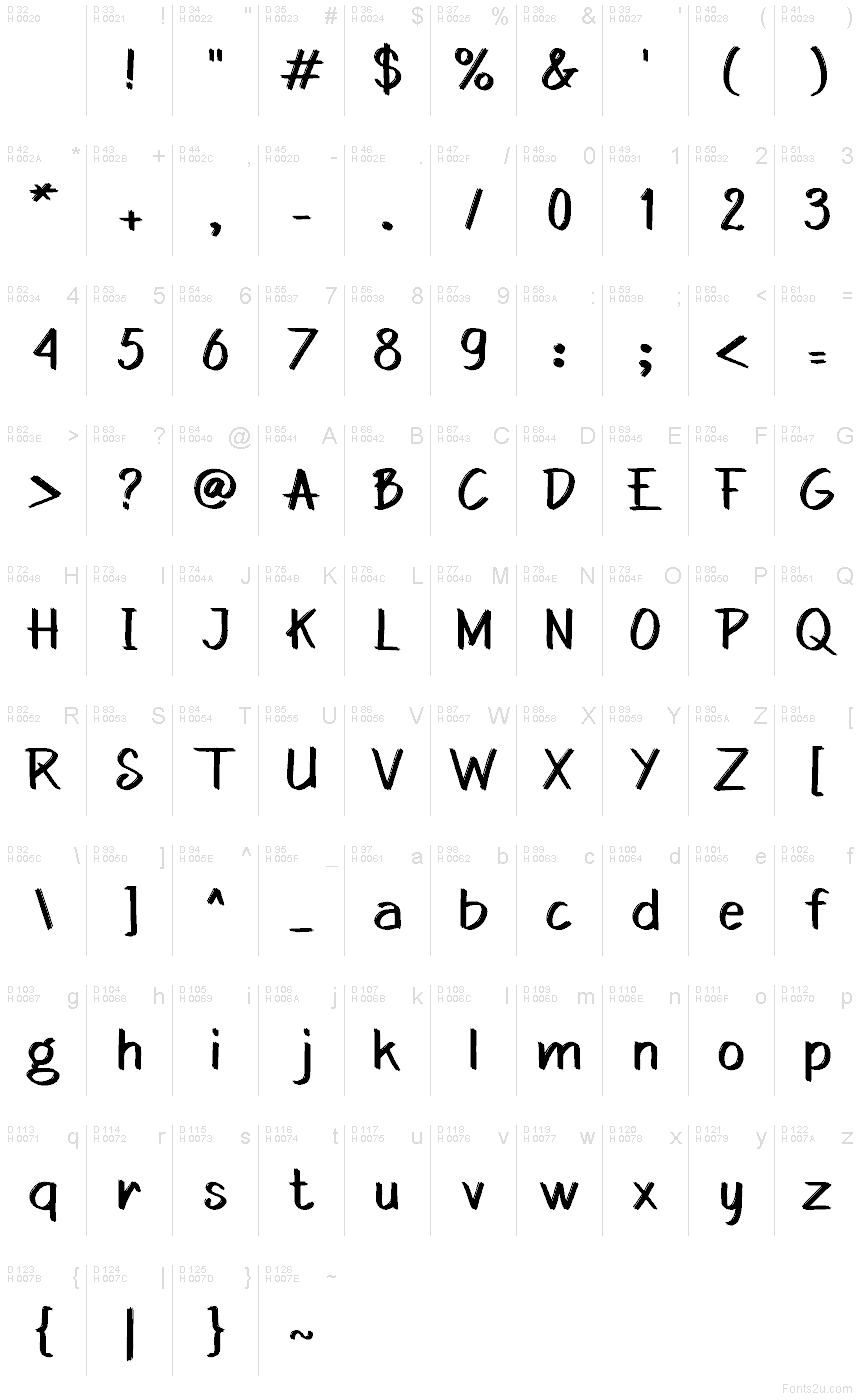
Building Victory
Building Victory font by Studio Hello Good is an expressive handwritten font with energy and flair. With a brush-like texture, it captures a dynamic and artistic feel that resonates across various designs. This free handwritten font is the perfect tool for those looking to bring vitality and creativity into their projects.
Perfect as the primary or secondary typeface, Building Victory suits websites, banners, social media posts, headlines, book covers, magazines, logos, slogans posters, advertisements packaging sports events invitations typography mixtures within images keseluruhan tampilas kampanye pembicaraan.